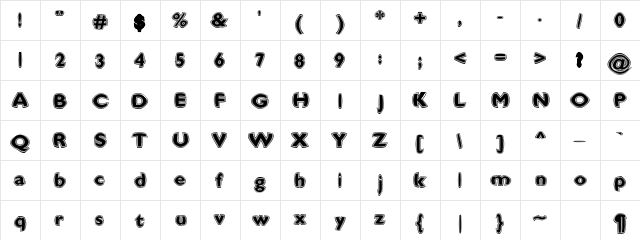
Contrive001 Regular
Design Context for Contrive001 Typeface
Contrive001 offers clean, dependable letterforms without strong stylistic allegiance, making it a practical choice for designers who need flexibility.
Pro Tip: Use Contrive001 in both headline and body roles to test its range before committing to a single application.